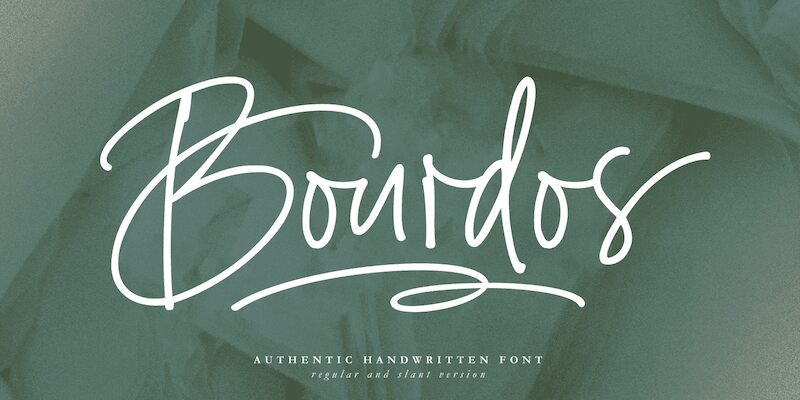
Bourdos font is an authentic handwritten typeface designed by Mans Greback.
Use underscore _ to make a swash.
Example: Amaz_ing
Use multiple underscores to make different swashes.
Example: Price__less